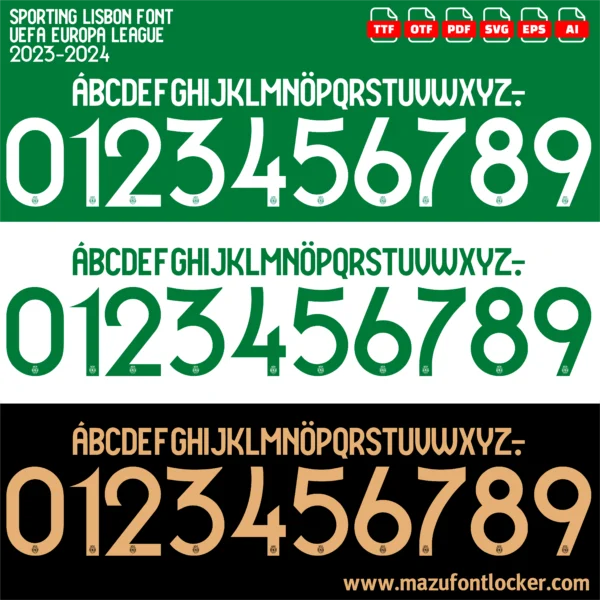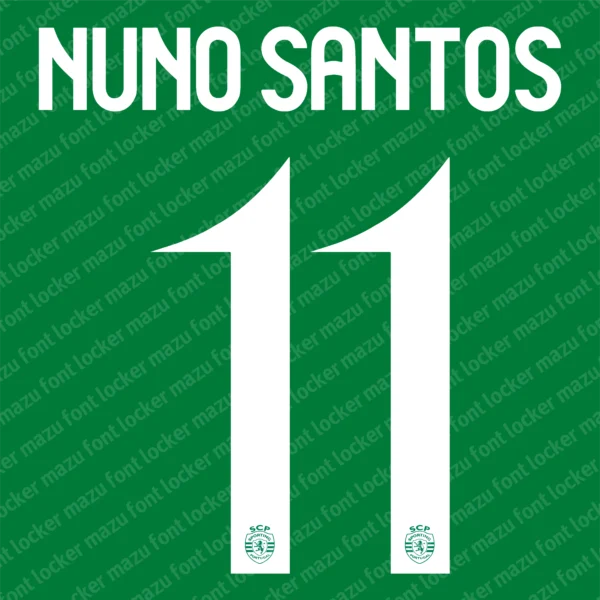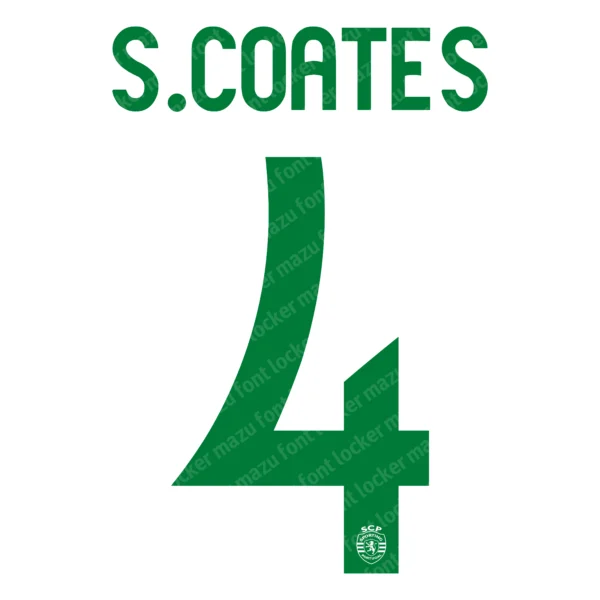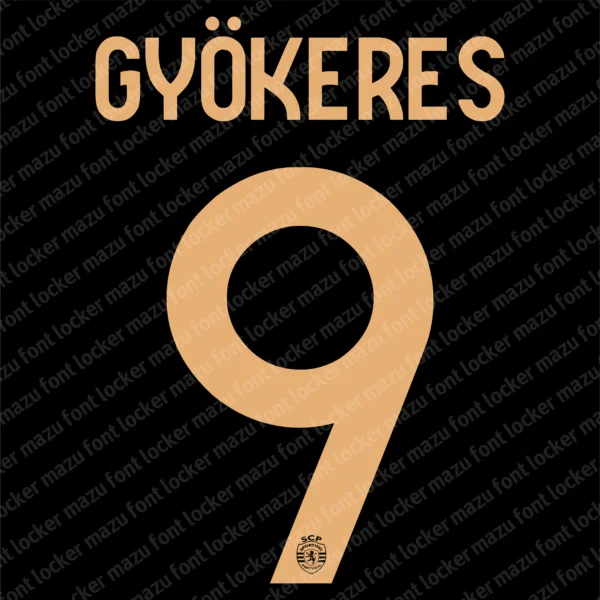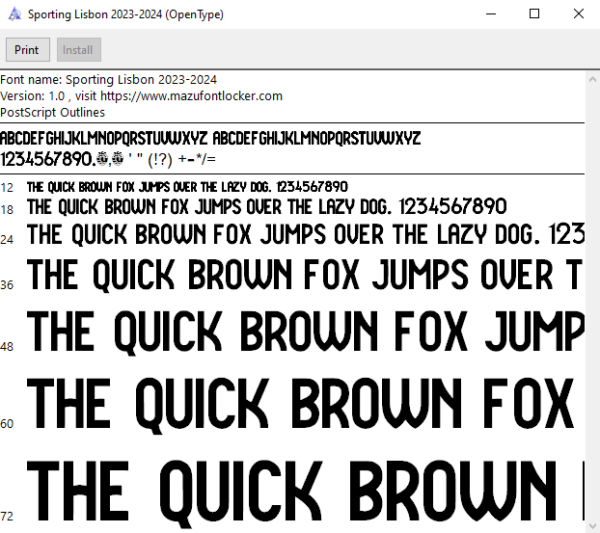
Sporting Lisbon 2023-2024 Font Vector – Epic Leões Masterpiece
This font captures the commanding, emerald-edged, lightning-strike, and precision-engineered lettering that perfectly embodies Sporting Lisbon’s iconic club identity, proud Portuguese heritage, legendary green-and-white tradition, lion-hearted spirit, and unstoppable Portuguese football power — delivering unmatched authenticity, premium quality, explosive energy, and elite Primeira Liga & European competition intensity for professional jersey mockups, dynamic football graphics, premium sports branding, passionate fan creations, and high-end design projects.
Sporting Lisbon 2023-2024 Font Vector – Stunning Leões Green & White Typeface
The Sporting Lisbon 2023-2024 Font Vector is a premium typeface that accurately recreates the distinctive match lettering associated with Sporting Clube de Portugal during the 2023-2024 football season. This high-quality vector font kit captures the bold, clean, and instantly recognizable typography that perfectly complements the club’s iconic green and white identity.
Designed for professional designers, football enthusiasts, jersey collectors, and passionate Sporting CP supporters, the Sporting Lisbon 2023-2024 Font Vector delivers exceptional authenticity for creating realistic jersey mockups, football merchandise, social media graphics, match posters, squad designs, and custom fan artwork. Every character has been carefully recreated to reflect the powerful and precise visual style of one of Portugal’s most historic and successful football clubs.
Why Choose Sporting Lisbon 2023-2024 Font Vector
This font stands out thanks to its precise vector construction and authentic club-inspired styling. Every letter and numeral has been meticulously recreated to match the distinctive football lettering aesthetic associated with Sporting Lisbon during the 2023-2024 season and its domestic and European campaigns.
Whether you’re producing professional football kit templates, custom jersey concepts, or eye-catching football content, the Sporting Lisbon 2023-2024 Font Vector delivers a genuine match-ready appearance inspired by the identity of the Leões.
The lettering featured in the Sporting Lisbon 2023-2024 Font Vector combines clean geometric lines with bold modern proportions. The result is a premium and highly readable typeface that reflects Sporting CP’s proud football heritage, iconic green and white colors, Lisbon identity, and passionate global fanbase.
- Complete uppercase A–Z alphabet and numbers 0–9 in authentic Sporting Lisbon 2023-2024 inspired style
- Special Sporting CP badge glyph – Press the “:” (Colon) key to insert the club badge
Wearing their iconic green and white stripes, Sporting Lisbon continued to represent a proud football tradition built on ambition, academy excellence, and a passionate connection with supporters in Lisbon and around the world.
The Sporting Lisbon 2023-2024 Font Vector is inspired by the distinctive football typography and visual identity associated with this campaign, making it an excellent choice for designers creating custom jersey concepts, football posters, squad graphics, matchday artwork, and fan-made projects. For official club information, news, team updates, fixtures, and match information, visit the official Sporting CP website.
The Sporting Lisbon 2023-2024 Font Vector is an independently designed typeface package inspired by the official shirt lettering and visual identity associated with Sporting Clube de Portugal during the 2023-2024 football season. It has been carefully recreated for football enthusiasts, graphic designers, collectors, jersey creators, and fans producing custom football concepts, digital artwork, and fan-made projects. Please note that this is a fan-made design resource and is not an official product of Sporting Clube de Portugal, Liga Portugal, UEFA, or any associated organization.